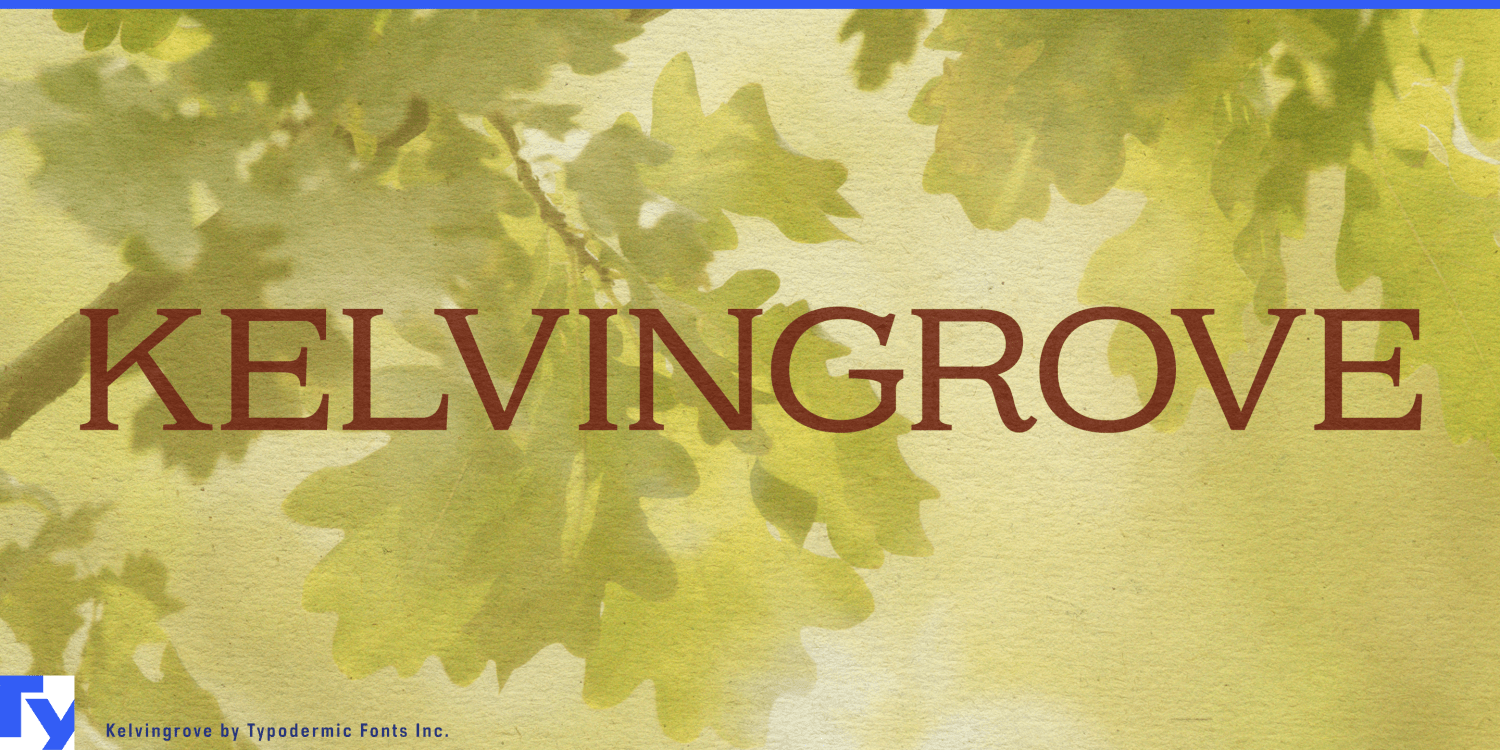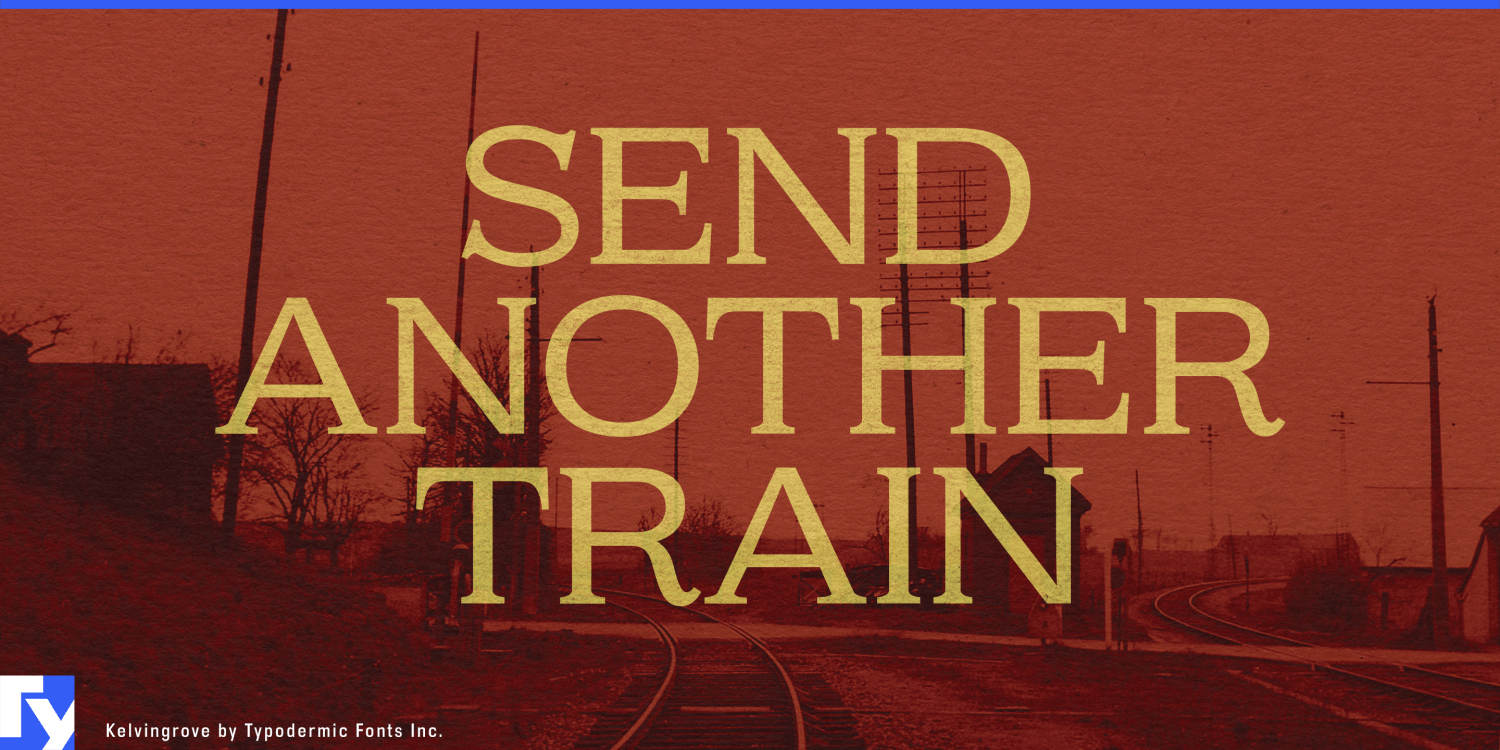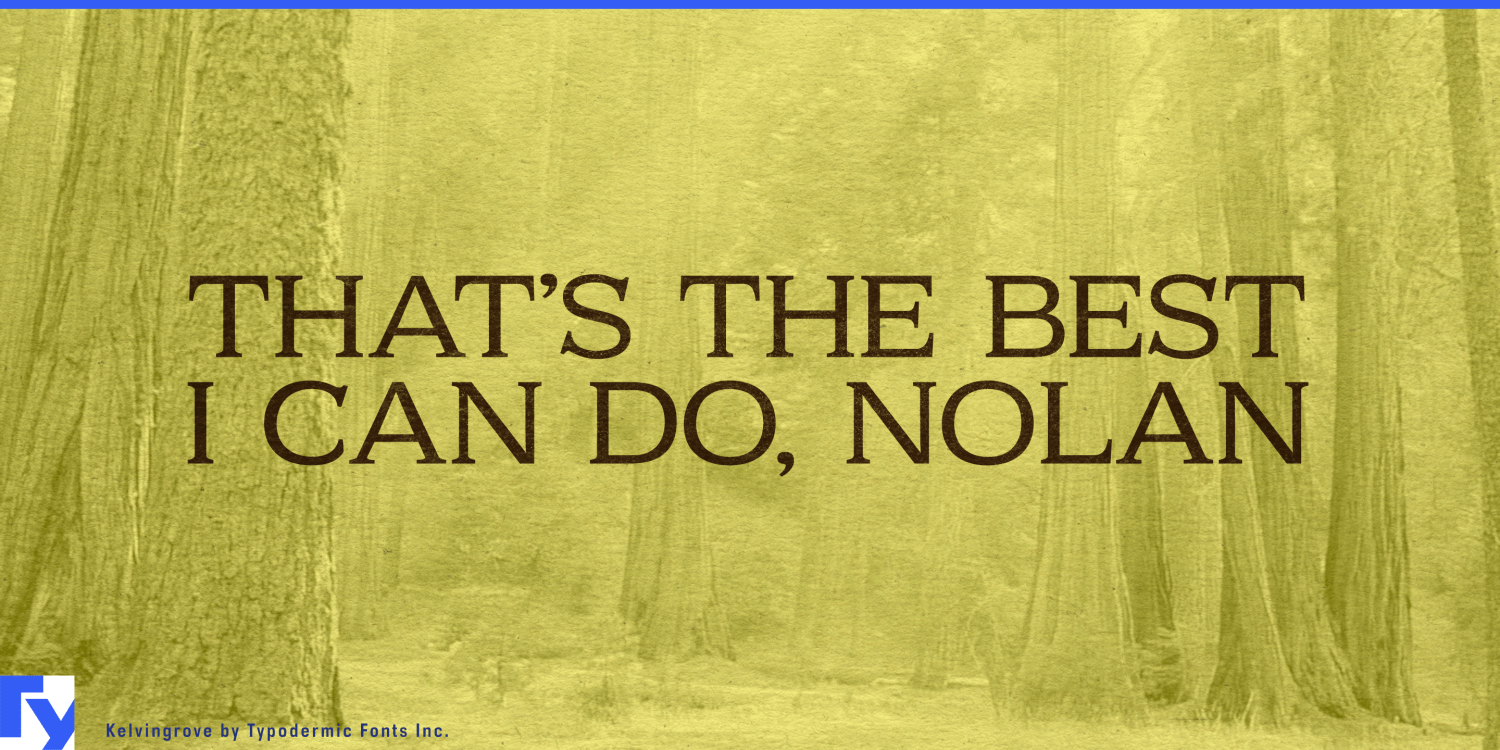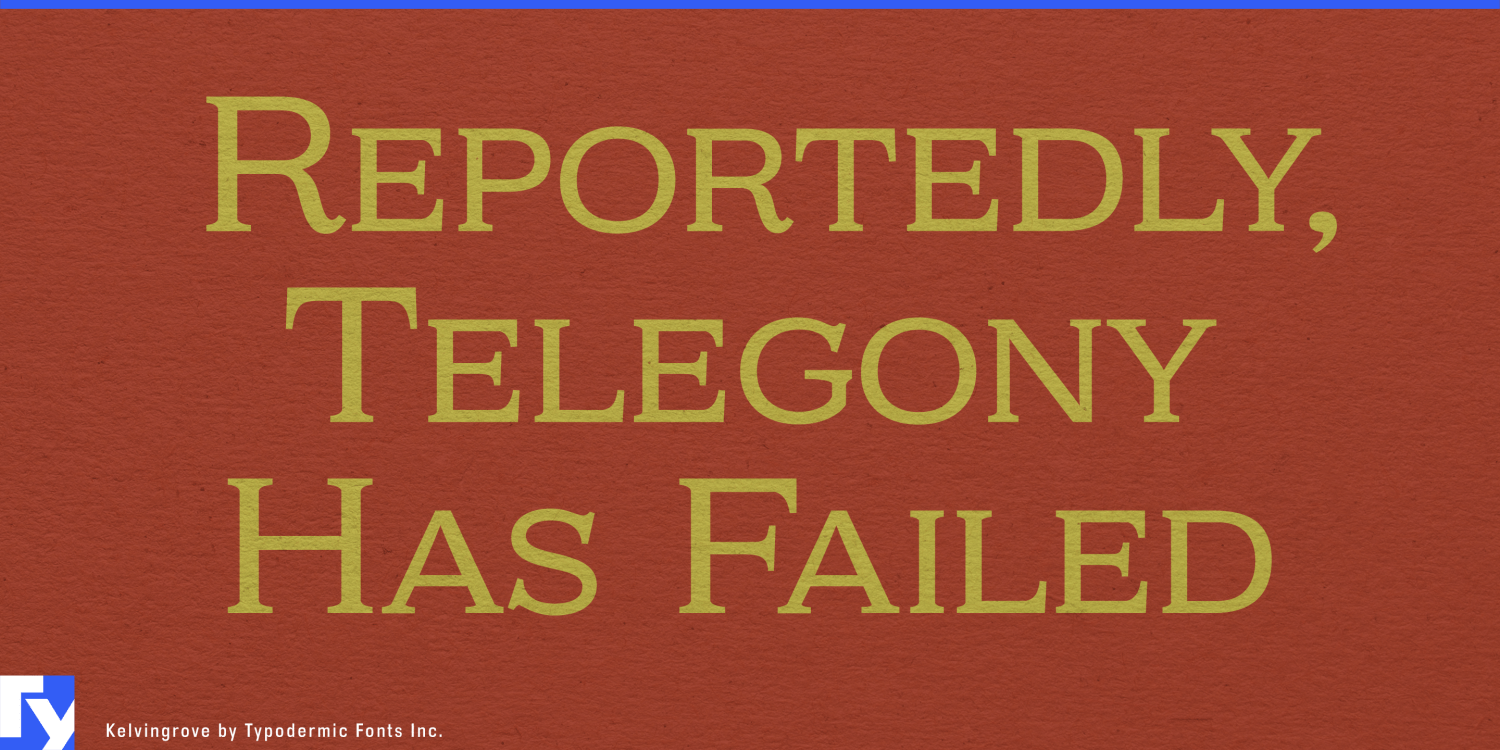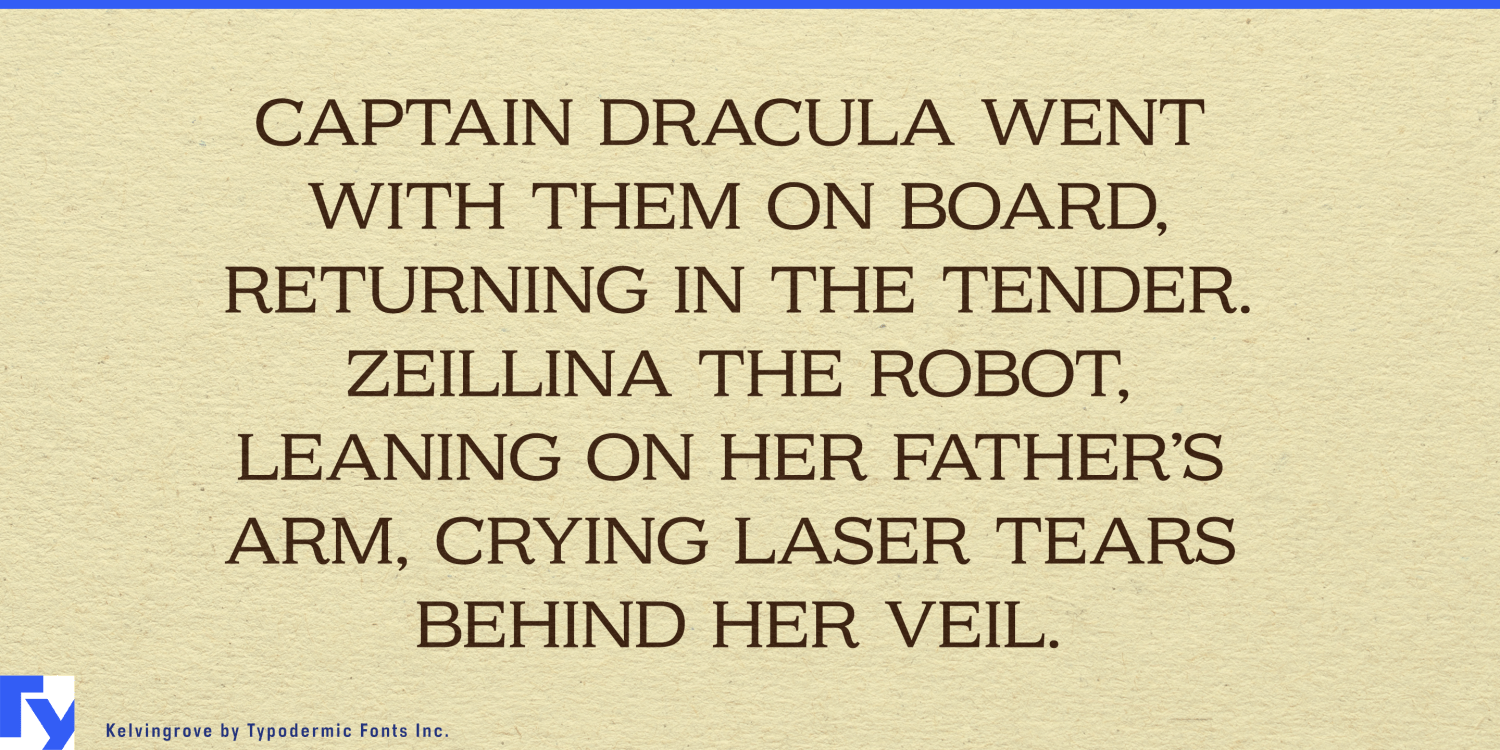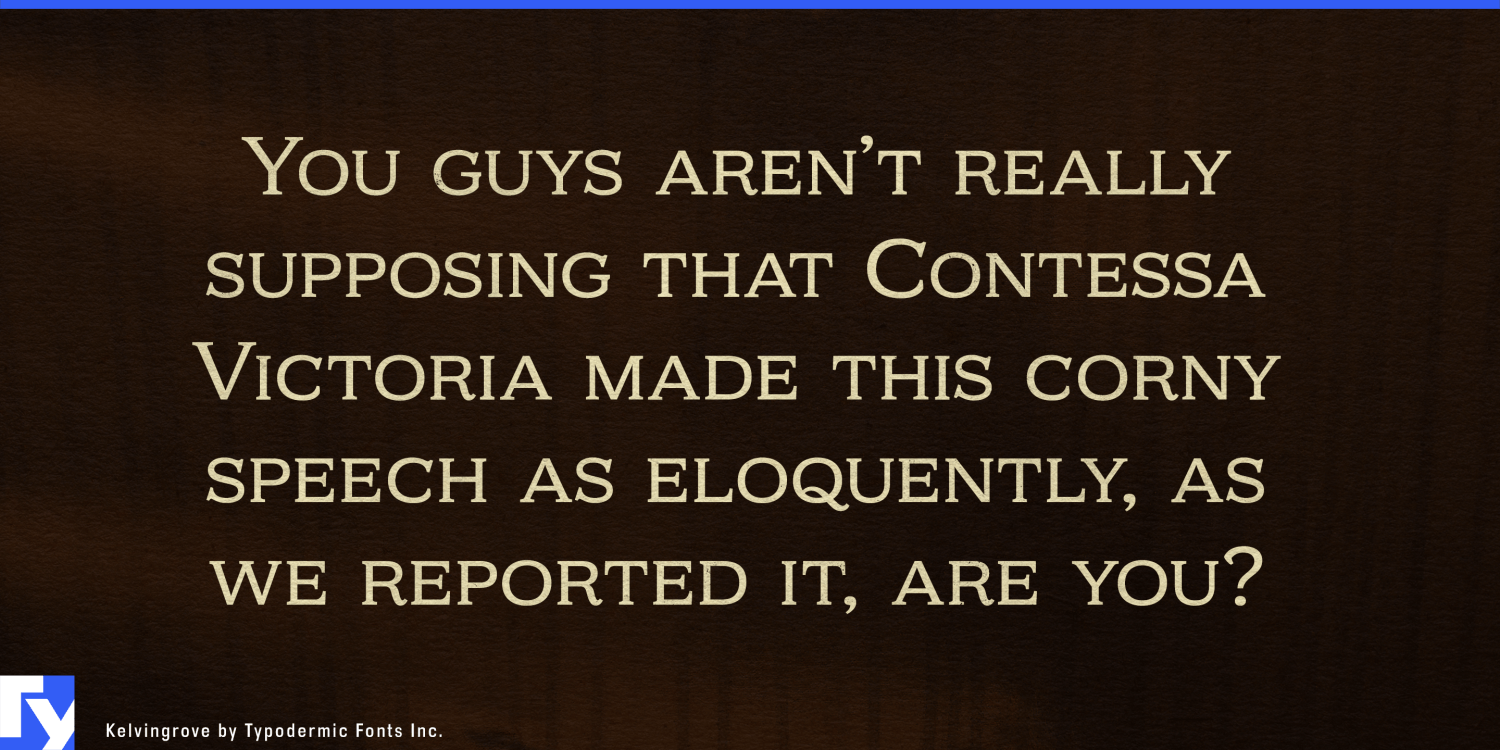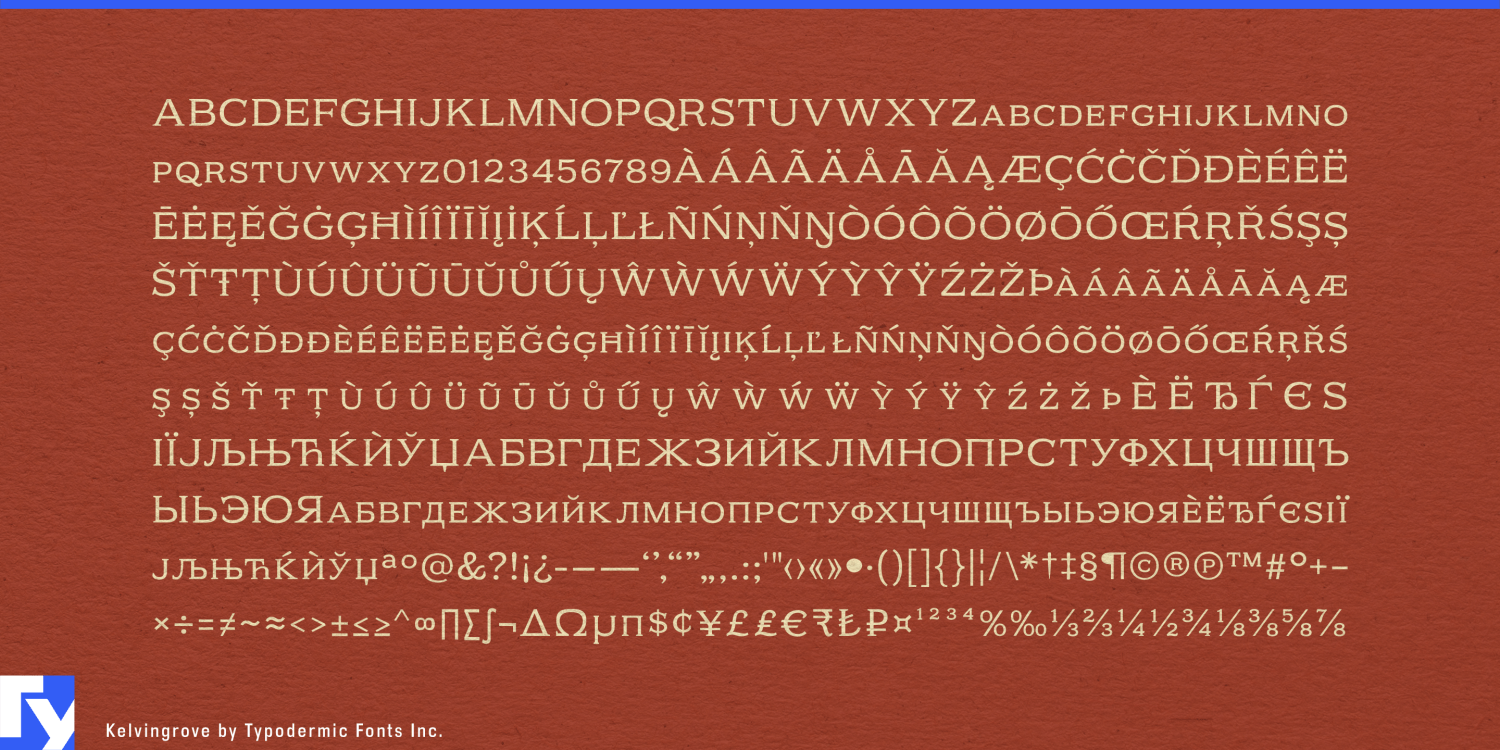
Kelvingrove
Kelvingrove is a mixed-height small-cap serif designed for display typography. Important initials, proper names and key words can occupy the full cap height while the smaller capitals create a quieter second level. The result preserves the structure and formality of capital lettering without forcing every word to speak at the same volume.
Historic hotels, private clubs, converted landmark buildings and premium residential developments can use that hierarchy for property names, wings, lounges, restaurants and amenity names. Museums and cultural institutions can apply the same logic to exhibition titles, gallery names, section headings, donor acknowledgments and catalog covers where names, dates and subtitles need to remain formal but distinct.
Historical documentaries, architecture programs, literary adaptations and archival media can use Kelvingrove for series titles, episode cards, names, locations and dates. Capital forms keep the screen language composed, while the smaller capitals prevent every element from competing equally for attention.
Estate wine, premium tea, olive oil, preserves and other provenance-driven products often need producer names, regions, vintages and founding dates to coexist on restrained labels. Kelvingrove can distinguish those layers while maintaining a consistent engraved character rather than relying on decorative historical styling.
Institutional anniversaries and commemorative programs present the same problem. Museum centennials, university anniversaries, cultural-foundation milestones and heritage-property reopenings need organization names, years and event titles to share one formal system across commemorative marks, programs and exhibition graphics.
Kelvingrove began as an experiment combining elements of Biondi and Marion, resulting in a single distinctive serif style rather than a conventional revival. Alternate forms for K, Q, R and the ampersand provide additional control over prominent names and titles.
Kelvingrove is for projects that want the ceremony of capitals but still need hierarchy. It keeps the capital form intact while giving names, dates and supporting information more than one speaking volume.